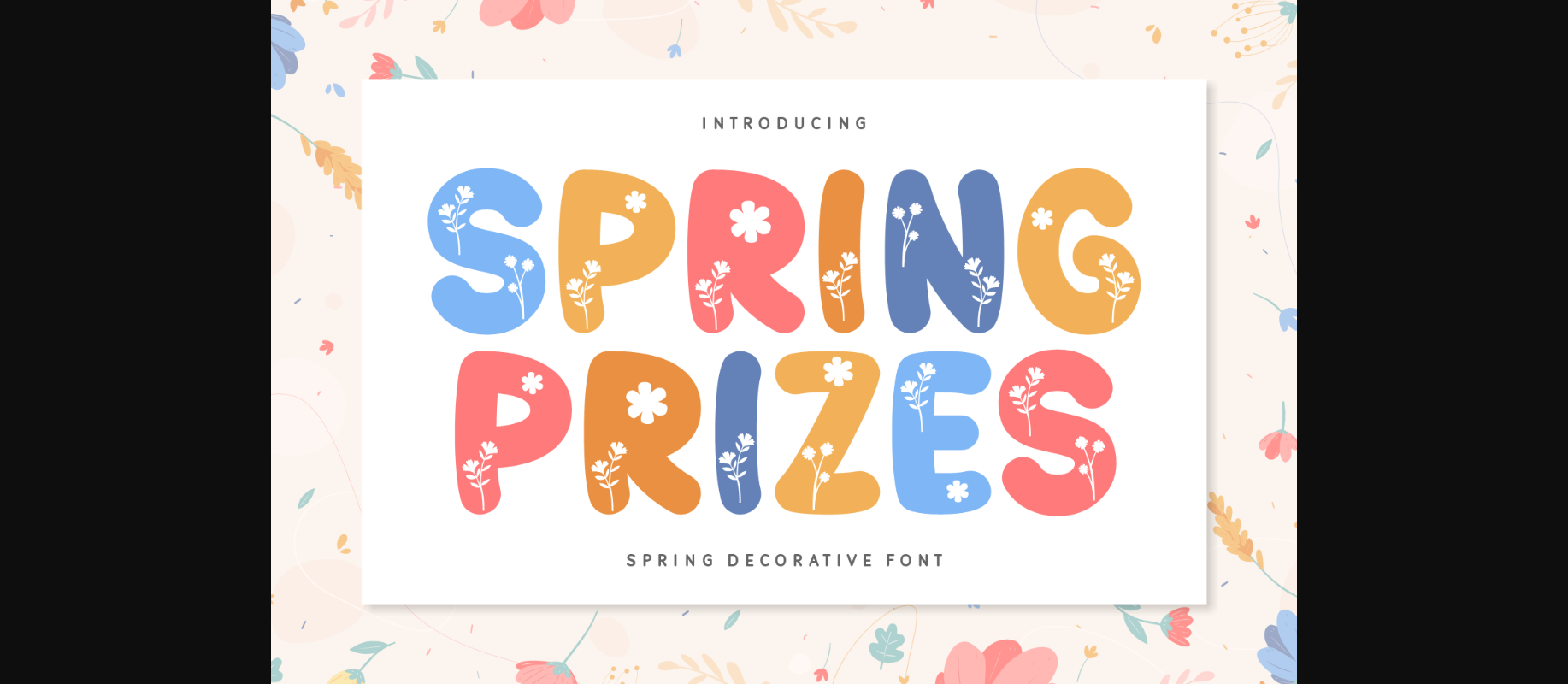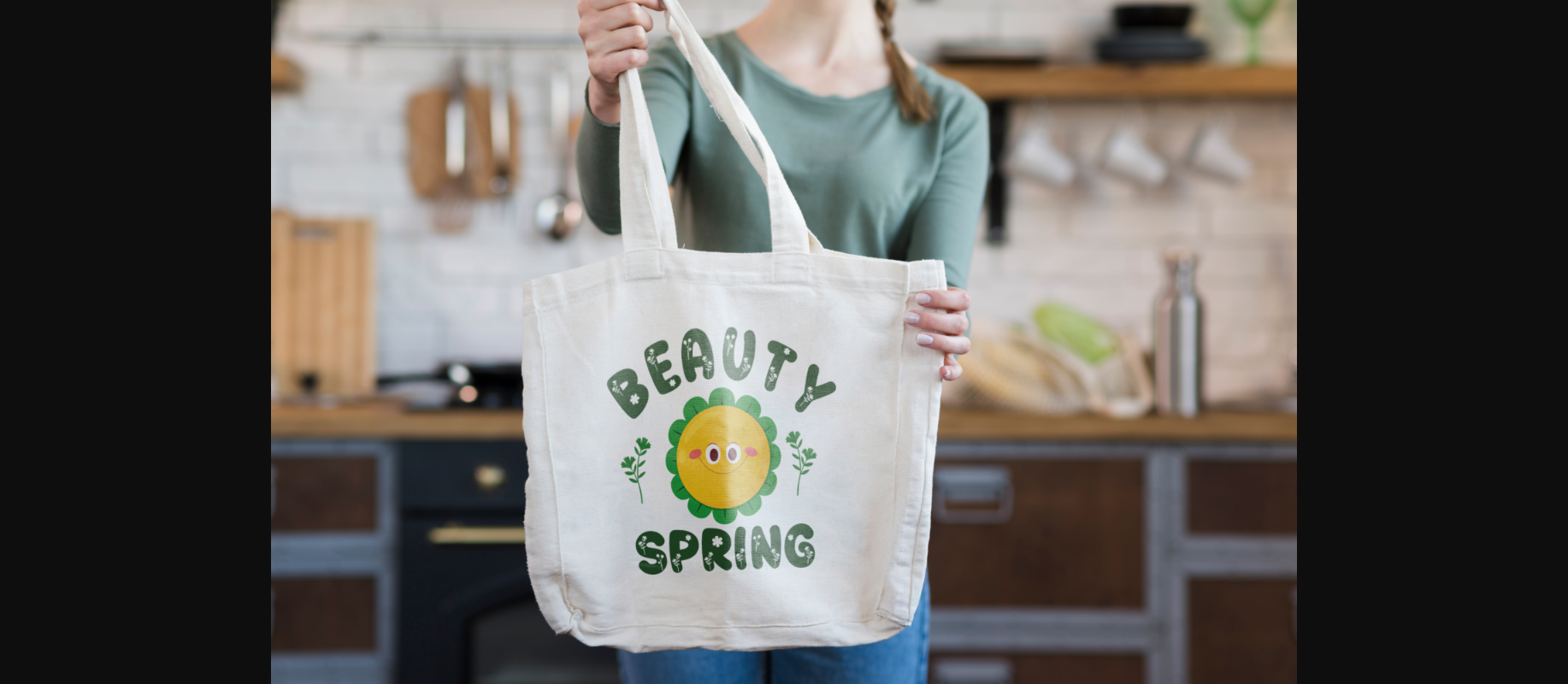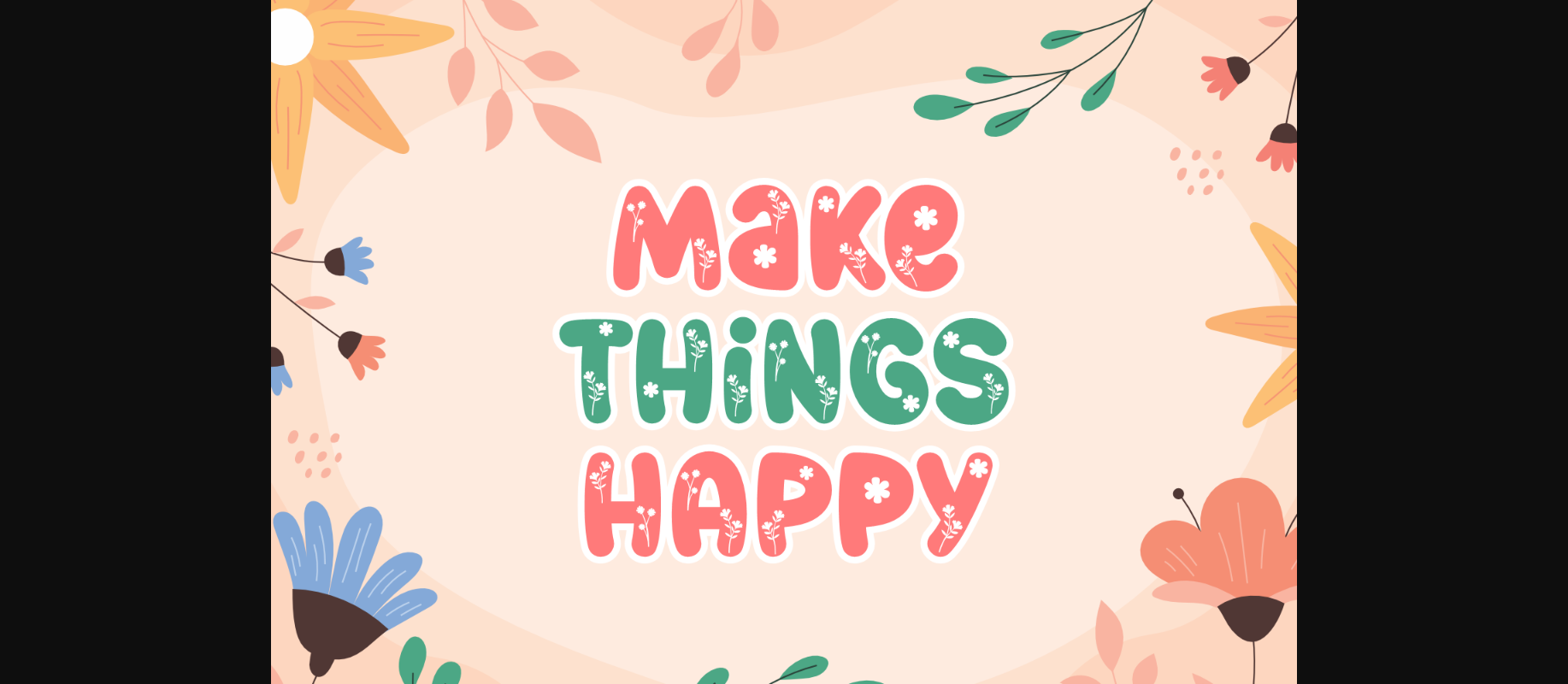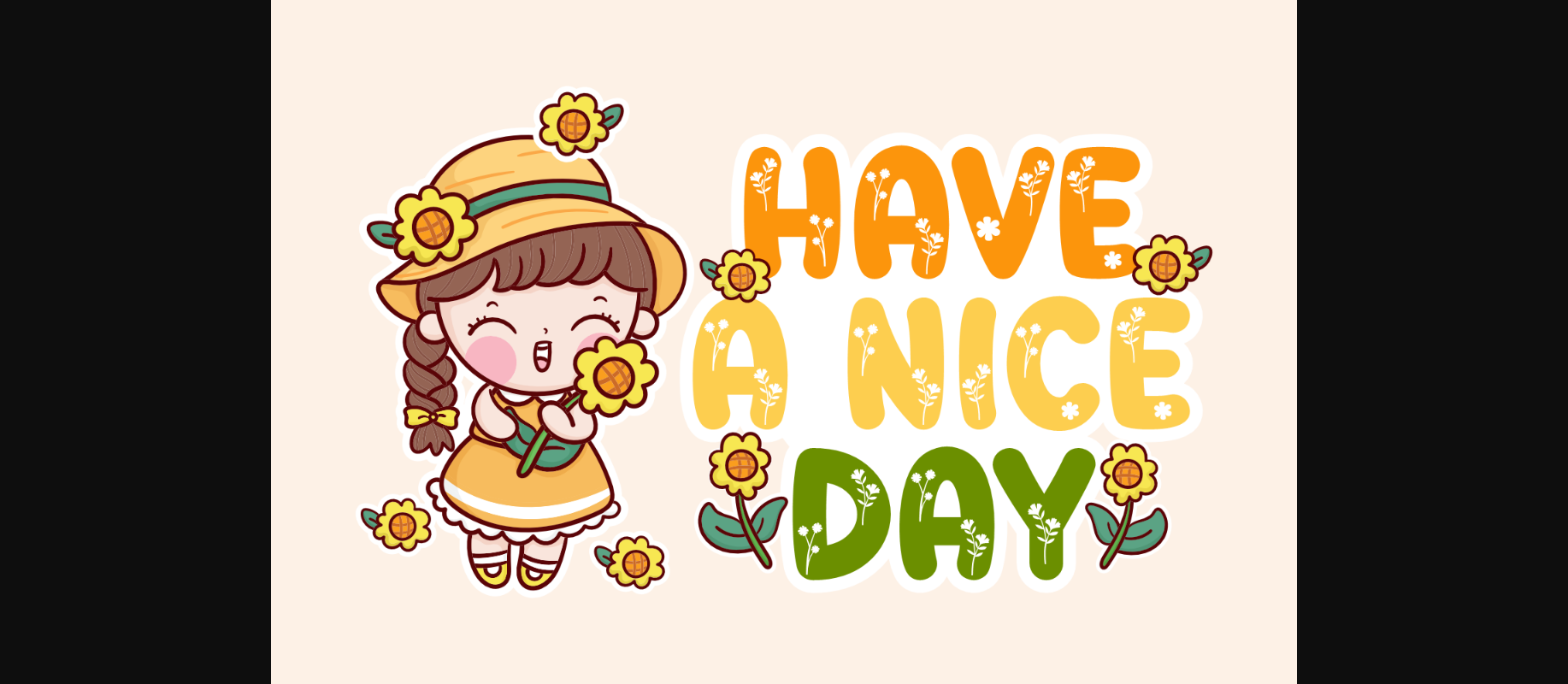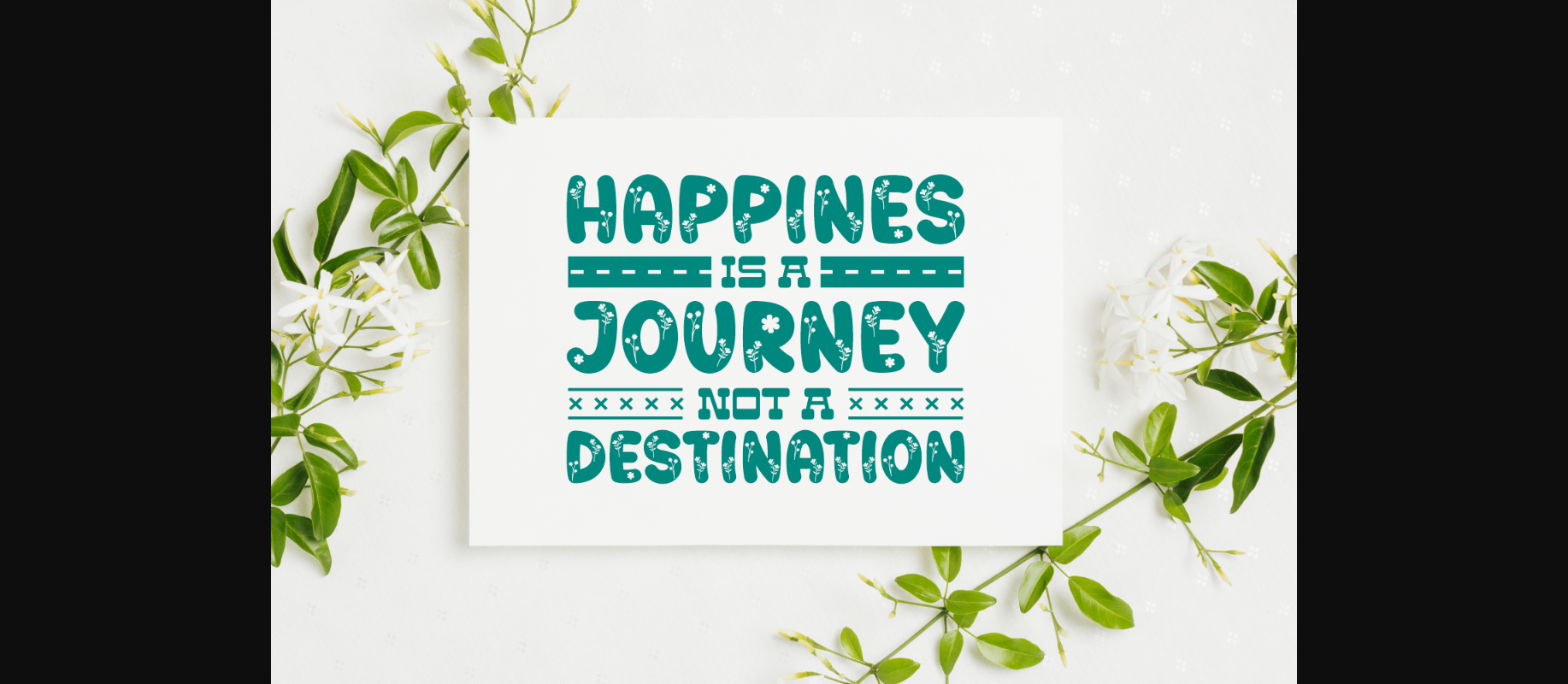
Spring Prizes Font
About Spring Prizes Font
Spring Prizes is a captivating typeface that reflects the joy and renewal of spring. It’s an elegant, ornamented font that’s been carefully designed to exude a quirky, artistic charm perfect for all your artistic and craft projects. With its delightful blend of floral elegance and whimsical charm, Spring Prizes Font is enchanting, engaging and heartwarming.
It’s the perfect typeface for adding an innovative and distinctive flair to posters, advertising events, and fashioning unique clothing designs. Seeking to infuse your design project with a breath of fresh air? Spring Prizes Font is your indispensable font companion. In every letter, discover the ‘go green’ spirit playfully captured within, bringing the freshness and novelty of spring to your fingertips. Spring Prizes is more than just a typeface, it’s a jubilant tribute to the cheer and innovation that epitomizes the season of spring. Immerse yourself in a realm of artistic expression with Spring Prizes, where each character is an echo of spring’s exuberance embodied in font form.